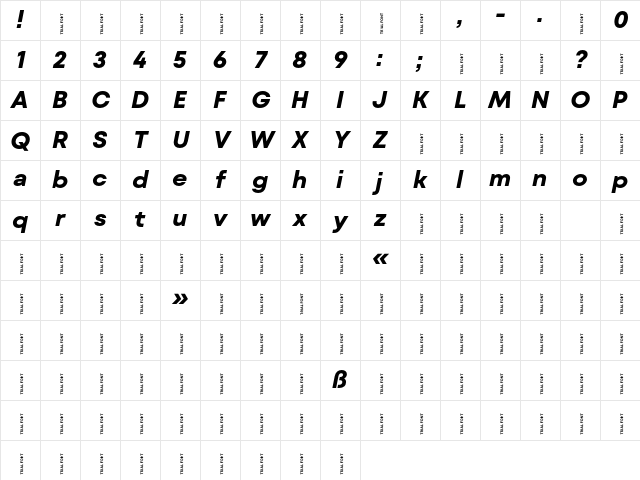
Complete Mont Blanc-Trial Bold Italic glyph index. Displaying only characters natively supported by Mont Blanc-Trial Bold Italic font.
Mont Blanc-Trial is a composed and adaptable typeface that performs quietly and consistently across a wide range of design contexts. The slanted form adds forward momentum and visual energy. Its bold stroke weight gives it real presence on the page.
Pro Tip: Use Mont Blanc-Trial for emphasis, pull quotes, and subheadings where its slanted energy can add rhythm to the layout.